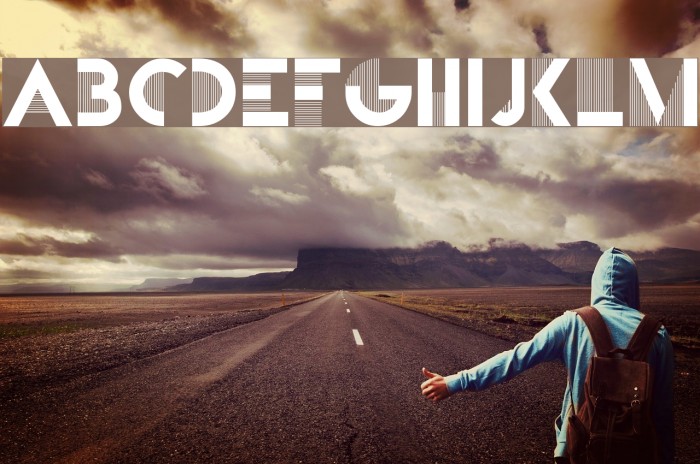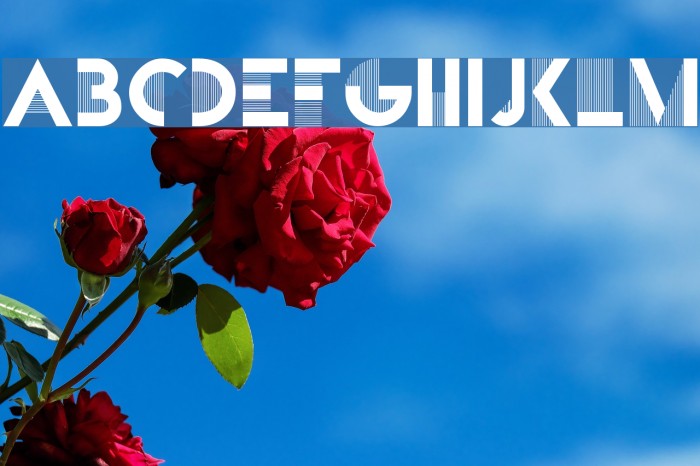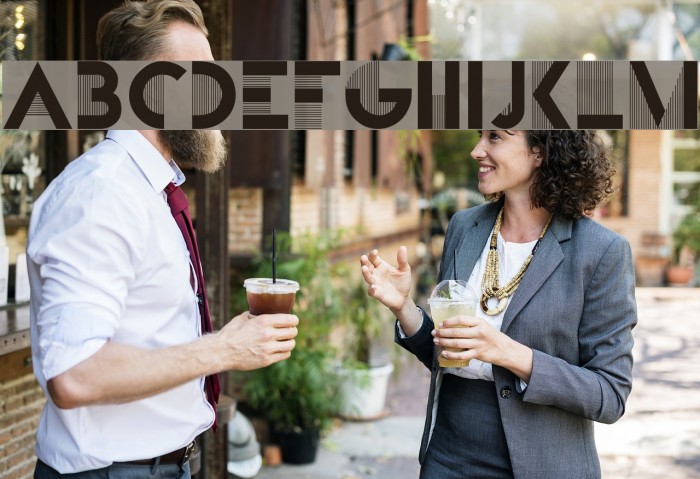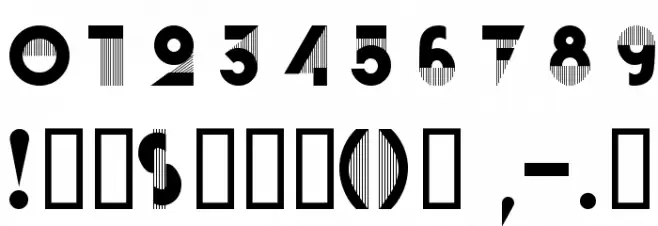
Bifur Font
This font features a unique and striking design characterized by its geometric and art deco influences. The letters are constructed with bold, solid shapes combined with intricate line patterns, creating a sense of depth and movement. The uppercase letters are particularly distinctive, with some characters incorporating horizontal or vertical lines that contrast with the solid portions. This creates a dynamic visual effect that is both modern and reminiscent of early 20th-century design. The numerals and special characters follow the same design principles, ensuring a cohesive look across all glyphs. The font's style is ideal for making a bold statement in any design project.
A geometric, art deco-inspired font with bold shapes and intricate line patterns.
- Proposed Projects: Ideal for posters, branding, packaging, and any project requiring a bold, artistic touch.
- Overall Style: Art Deco, Modern